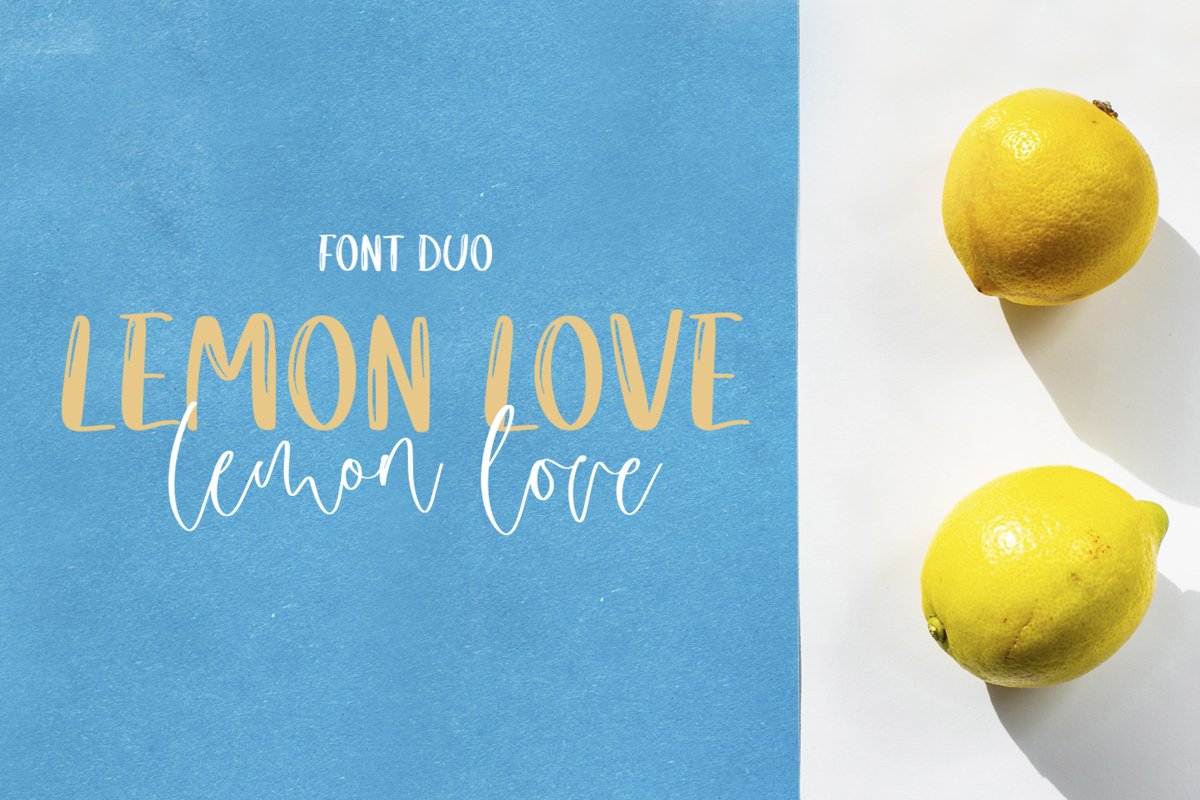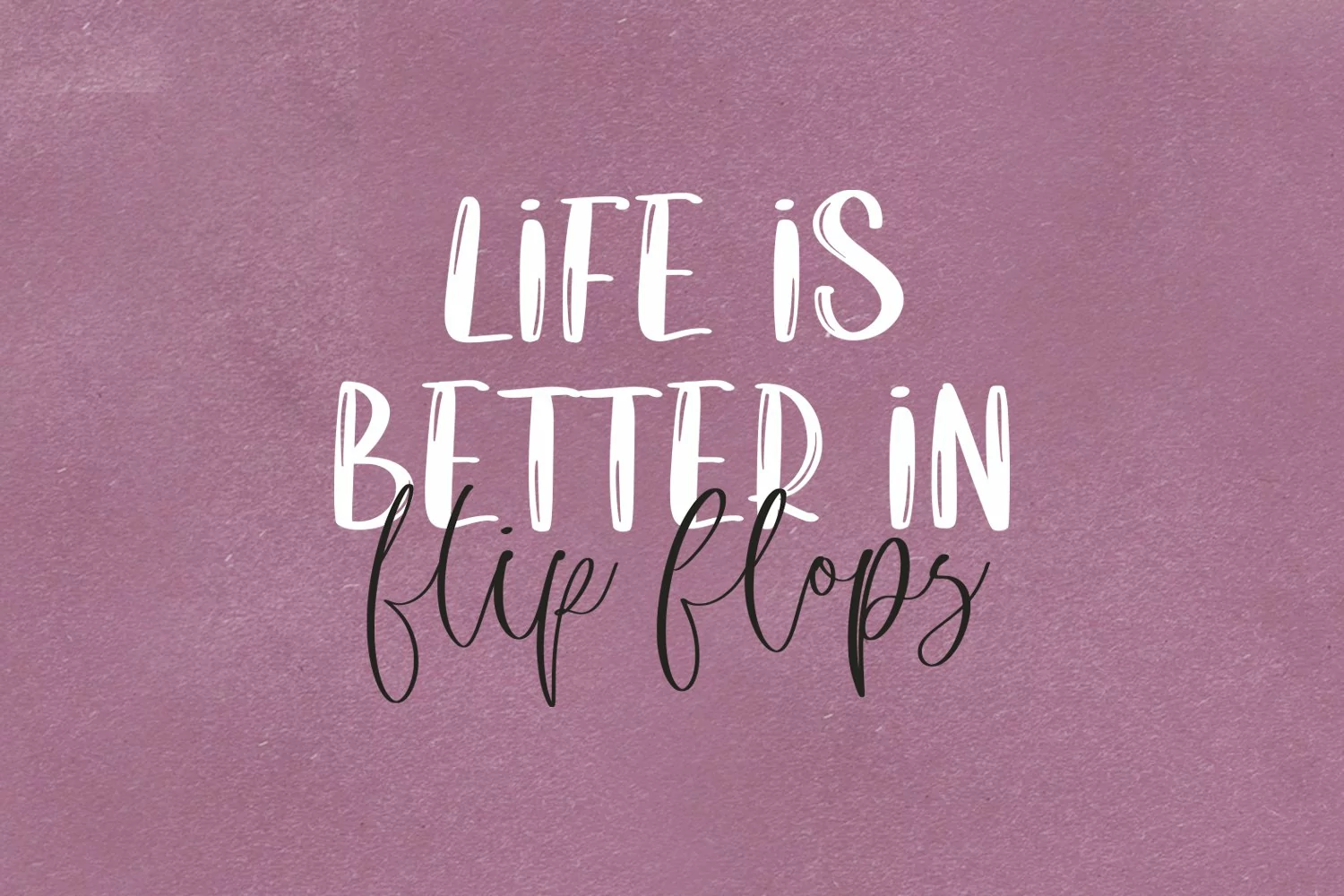
Lemon Love Font Duo - handwritten font duo
Lemon Love Font Duo .otf - all uppercase sans serif font, numbers, punctuation
Lemon Love Script .otf - standart and alternate uppercase, lowercase, numbers, punctuation